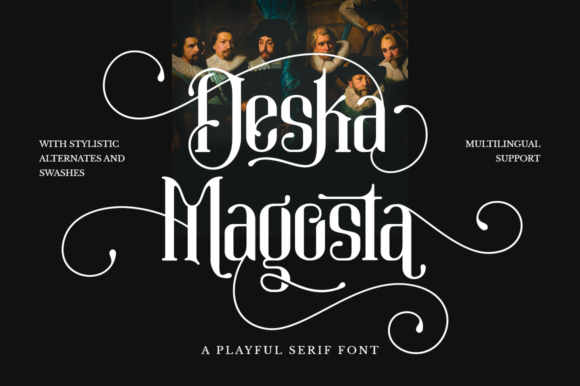
Unleashing the Elegance of Typography
There’s something magical about the moment a font comes together, and the words on the page start to feel like a work of art. You know, that instant when the font’s personality shines through, and your design starts to feel truly alive. For designers, finding that perfect font can be a game-changer – and that’s exactly what the Deska Magosta Font does.
With its calligraphic influences and contemporary feel, the Deska Magosta Font is a masterclass in elegance. Whether you’re designing a luxury brand or a high-end magazine, this font is sure to make your words stand out. Plus, its PUA encoding means you can access all the glyphs and swashes with ease, giving you endless creative possibilities.
As a designer, you know that a great font can make all the difference. The Deska Magosta Font is a valuable addition to any designer’s toolkit, offering a level of sophistication and style that’s hard to find elsewhere.
Key Features of Deska Magosta Font
- Font Size: 4 styles available: Regular, Bold, Italic, and Bold Italic
- Resolution: Supports up to 1024×1024 dpi, ensuring crisp and clear display at various resolutions
- Unique Characteristics: Unique, modern design with a mix of geometric and organic elements, ideal for creative and artistic projects
- Font Weight: 400, 700, 400 Italic, and 700 Italic weights available for versatile use
Designer Review: Deska Magosta Font
Deska Magosta Font is a typeface that has caught my attention with its unique blend of modern and vintage elements. ✨ Here are some aspects that I think work well:
- Exotic and eclectic feel that sets it apart from more common fonts
- Well-designed ligatures and diacritics that maintain its aesthetic consistency
- A wide range of weights and styles, making it suitable for various design applications
However, like any font, Deska Magosta has its limitations: ⚠️
- Can be challenging to read at small font sizes, especially in digital environments
- May not be suitable for body text due to its decorative nature
- Some letters may appear slightly irregular or uneven, which could be distracting in certain contexts
Overall, I think Deska Magosta is a fantastic choice for titles, headings, and other design elements where you want to make a statement. While it may not be the best fit for body text or situations where readability is crucial, it’s definitely worth considering for projects that need a unique, eye-catching font.
Tips for Getting the Most Out of Deska Magosta Font
Deska Magosta Font is a unique, handwritten font that works well for:
- Creating eye-catching headlines and titles.
- Adding a personal touch to invitations and greeting cards.
- Designing custom logos and branding materials.
Deska Magosta Font is commonly used in:
- Event branding and marketing materials.
- Custom signage and display graphics.
Alternatives to Deska Magosta Font
Great Vibes is a beautiful, elegant script font that’s perfect for creating a luxurious and sophisticated look. It’s ideal for use in branding, invitations, and other high-end materials.
Compared to Deska Magosta Font, Great Vibes has a more refined and polished feel, making it a great choice for designers who want to add a touch of elegance to their designs.
Alex Brush is a stunning, handwritten font that’s perfect for creating a personal and creative look. It’s ideal for use in blogs, social media, and other digital materials.
Compared to Deska Magosta Font, Alex Brush has a more casual and relaxed feel, making it a great choice for designers who want to add a touch of personality to their designs.
Carolyna Pro is a modern, elegant serif font that’s perfect for creating a sophisticated and professional look. It’s ideal for use in corporate materials, magazines, and other high-end publications.
Compared to Deska Magosta Font, Carolyna Pro has a more refined and polished feel, making it a great choice for designers who want to add a touch of sophistication to their designs.
Dancing Script is a beautiful, elegant script font that’s perfect for creating a playful and whimsical look. It’s ideal for use in children’s materials, party invitations, and other fun and creative projects.